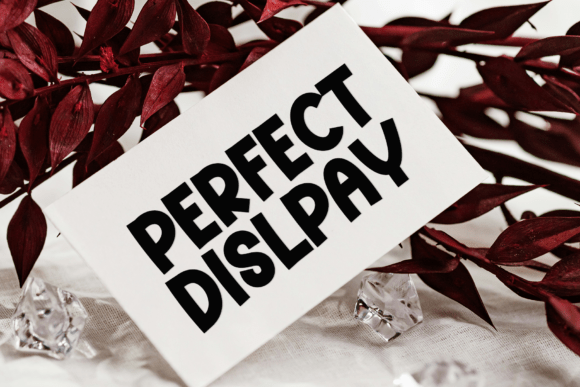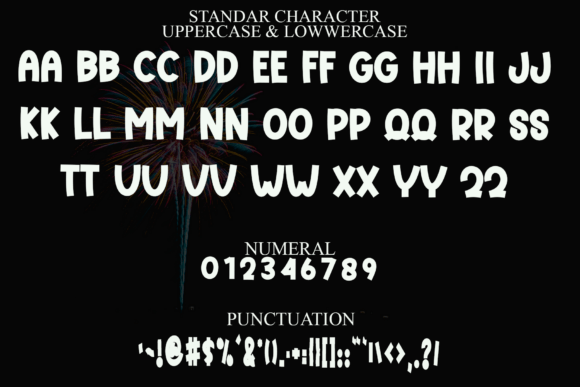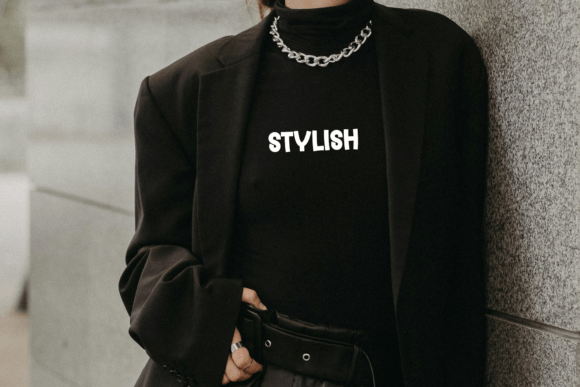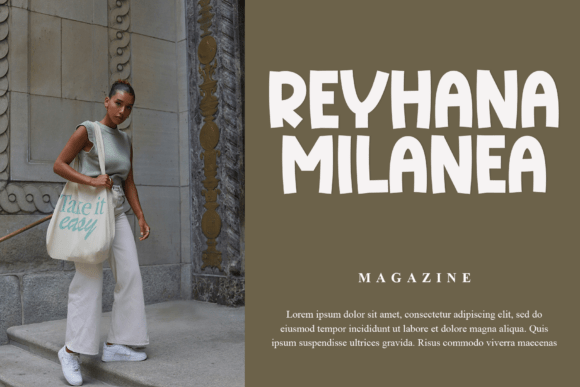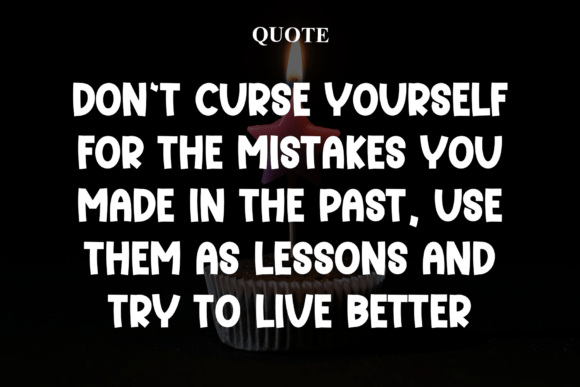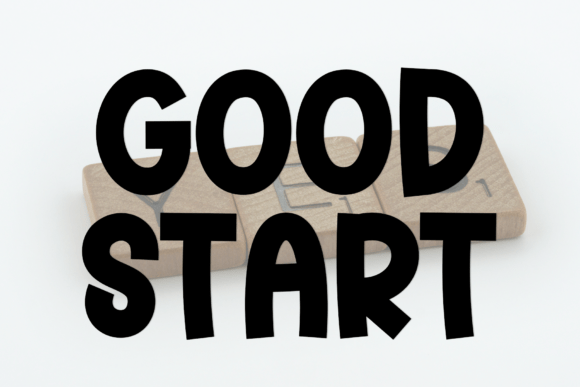
The Better Choice Font: A Sweet and Friendly Companion for Your Design Journey
Have you ever been in the middle of a design project, and suddenly, you’re stuck on finding the perfect font? I recall a recent experience where I was working on a whimsical craft project, and my client asked for a font that was both playful and elegant. After scouring through numerous font libraries, I stumbled upon the Better Choice font, which instantly became my go-to choice. In this article, I’ll share my experience with this lovely font and explore its features, usage, and alternatives.
An Honest Review of Better Choice Font
The Better Choice font has won my heart with its sweet and friendly handwritten style. Here are some aspects that I absolutely love:
- ✨ Natural and unique style that fits a wide range of designs
- 💕 Friendly and approachable vibe that’s perfect for crafty projects
- 🎨 Versatile and adaptable to various design contexts
However, no font is perfect, and Better Choice has a few minor quirks:
- 🤔 Limited availability of certain OpenType features
- ⚠️ Some glyphs may not be suitable for professional or formal designs
The Story Behind Better Choice Font
Although I couldn’t find much information on the designer’s background, I imagine that the creator of Better Choice was inspired by the warmth and playfulness of handwritten fonts. Perhaps they aimed to craft a font that would bring a smile to the user’s face and make their designs more approachable. Whatever the motivation, Better Choice has certainly captured the hearts of many designers and crafters.
| Q: Is Better Choice suitable for professional designs? | A: While Better Choice has a friendly vibe, it’s best suited for informal or crafty projects. For professional designs, consider pairing it with a more formal font. |